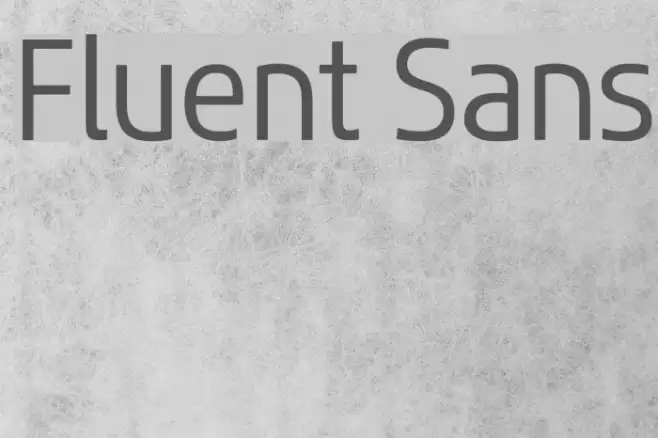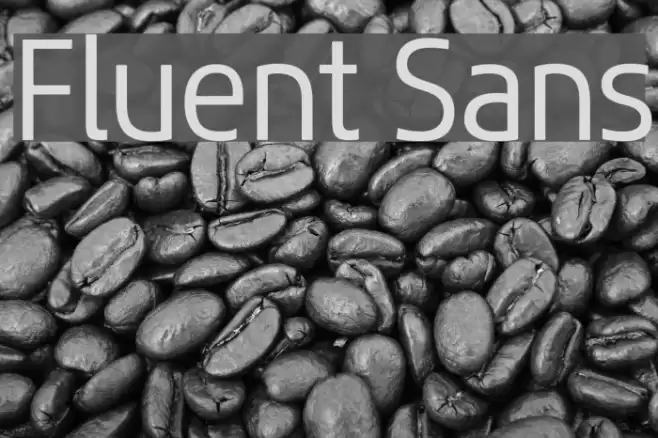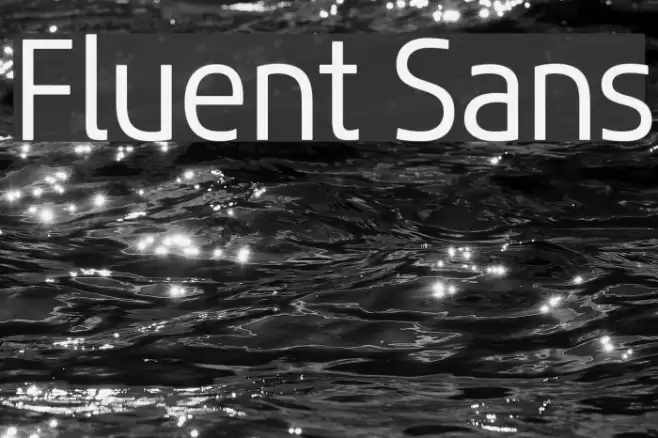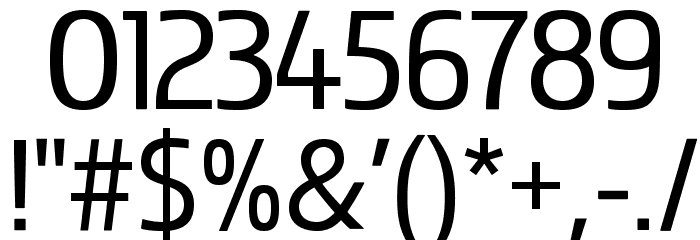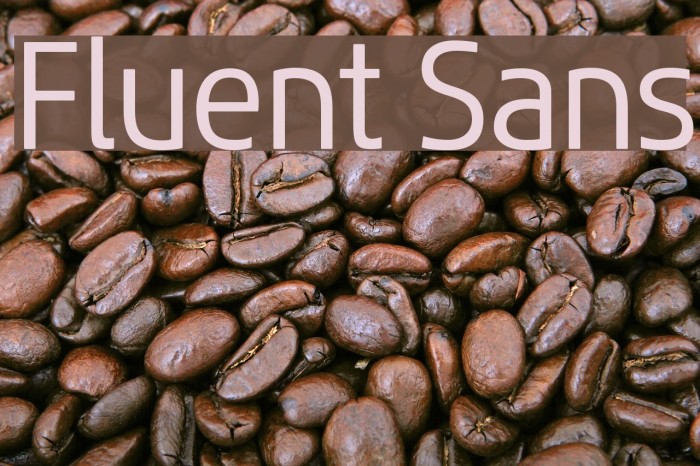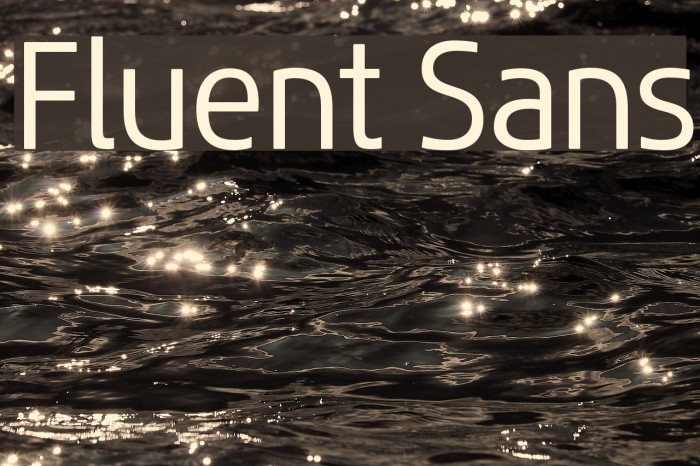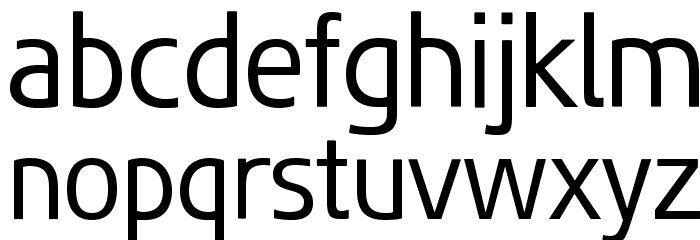
Fluent Sans Font
Fluent Sans Description
This font features a clean and modern sans-serif style with smooth curves and a uniform stroke width. The characters are well-proportioned, offering excellent readability across both uppercase and lowercase letters. The numerals are distinct and align well with the overall design, making it suitable for various applications. Special characters are clearly defined, maintaining the font's cohesive appearance. The overall design is sleek and professional, making it versatile for both digital and print media.
- Proposed Projects: Ideal for corporate branding, user interfaces, web design, and editorial layouts.